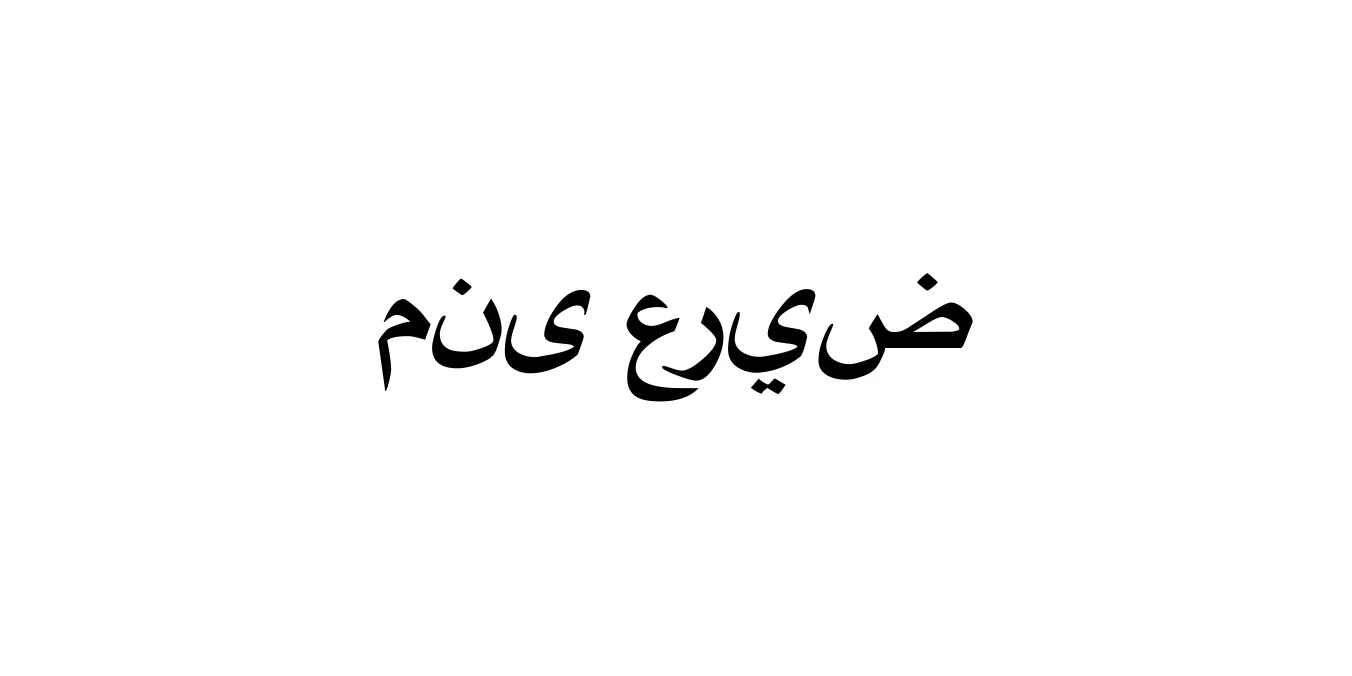
منى عريض
Designed by Mamoun Sakkal
| Category | Arabic Naskh / Display |
| Designer | Mamoun Sakkal |
Muna Broad, known as 'Mona Areez' (منى عريض) in many regional contexts, is a distinguished Arabic typeface designed by Mamoun Sakkal for Linotype in 1991. The typeface was created during a transformative period for digital Arabic typography, aiming to reconcile the fluid elegance of classical Naskh calligraphy with the technical constraints of modern digital typesetting. It was specifically engineered to serve the needs of professional publishers who required a font that maintained cultural authenticity while performing reliably across various printing technologies.
Expert analysis of Muna Broad reveals a masterfully heavy visual weight that does not sacrifice legibility. The letterforms are characterized by high-contrast strokes and generous counters, which prevent the 'filling in' of characters at smaller sizes—a common issue in bold Arabic scripts. Its vertical proportions are meticulously balanced, ensuring that diacritics and ligatures occupy their space without crowding the line above. The font’s architecture features a stable baseline and robust terminals, providing a rhythmic flow that is both authoritative for headlines and comfortable for brief, high-impact reading segments.
منى عريض Best Uses
Ideal for newspaper headlines and magazine titles that require a professional, authoritative tone.
Excellent for corporate logos and identity systems in the Middle East.
Perfect for high-impact promotional banners and billboards where readability from a distance is key.